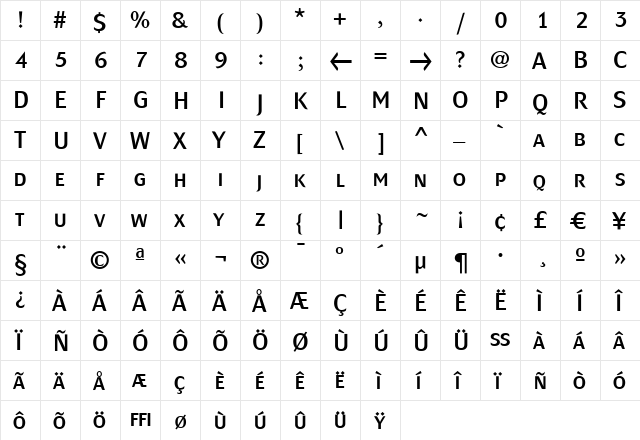
MondialPlus Demi Caps Regular
Design Context for MondialPlus Demi Caps Typeface
MondialPlus Demi Caps offers clean, dependable letterforms without strong stylistic allegiance, making it a practical choice for designers who need flexibility.
Pro Tip: Use MondialPlus Demi Caps in both headline and body roles to test its range before committing to a single application.